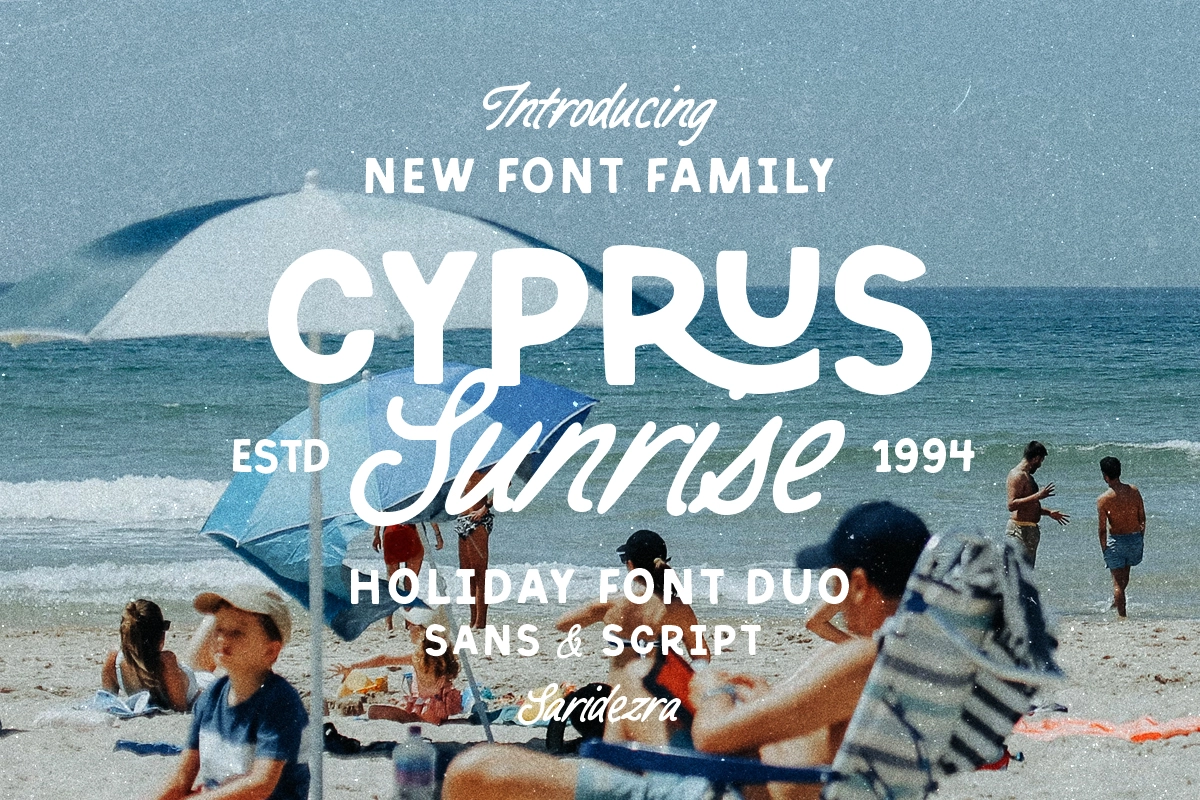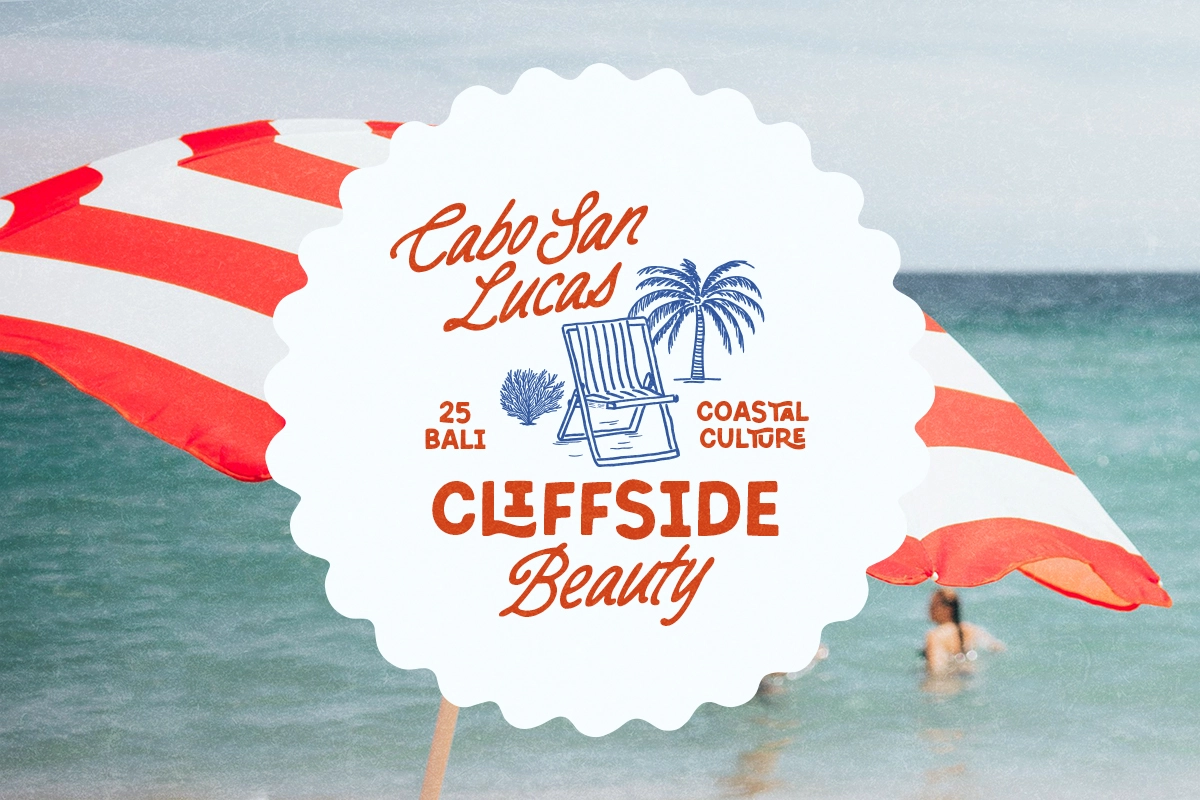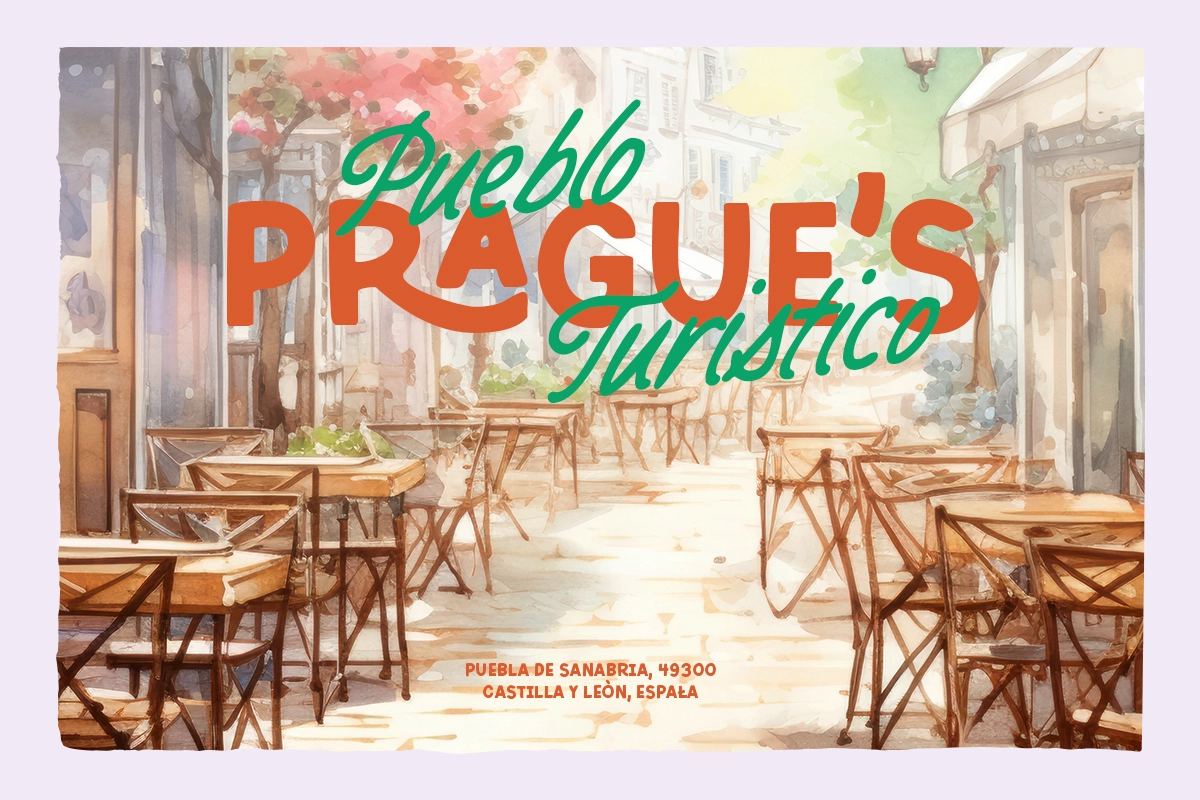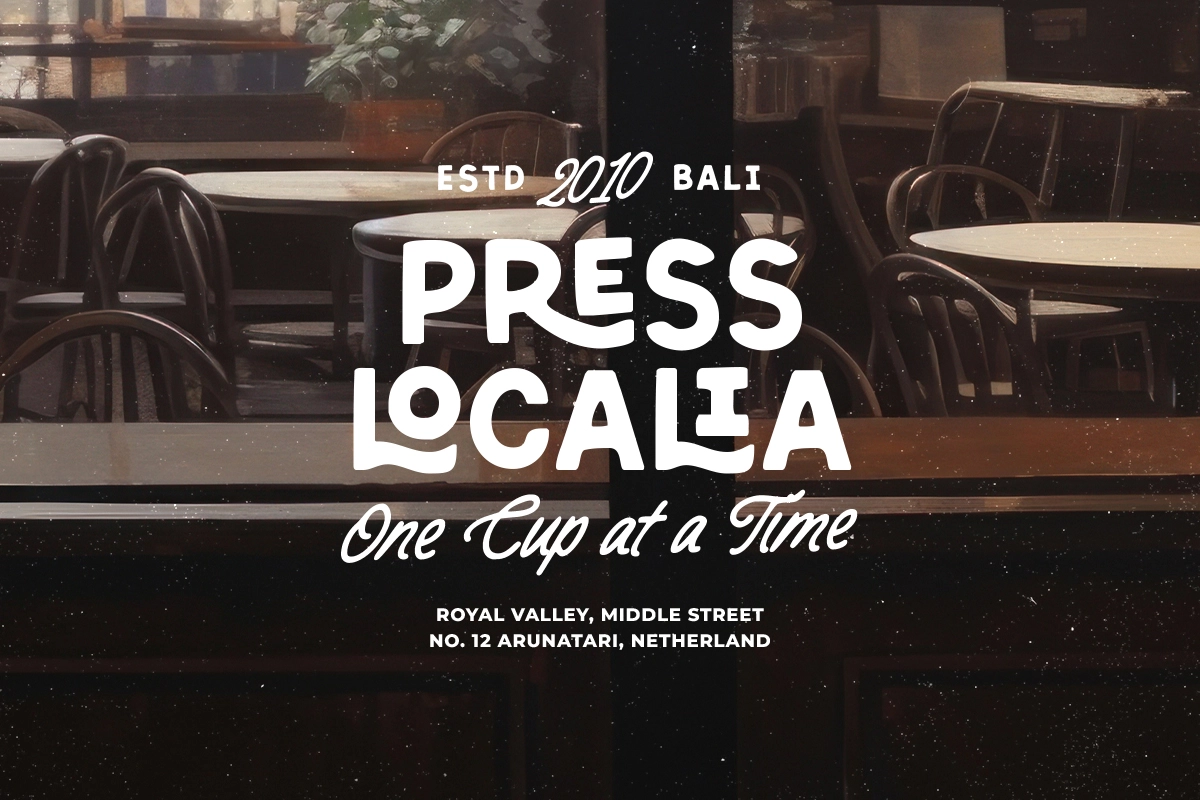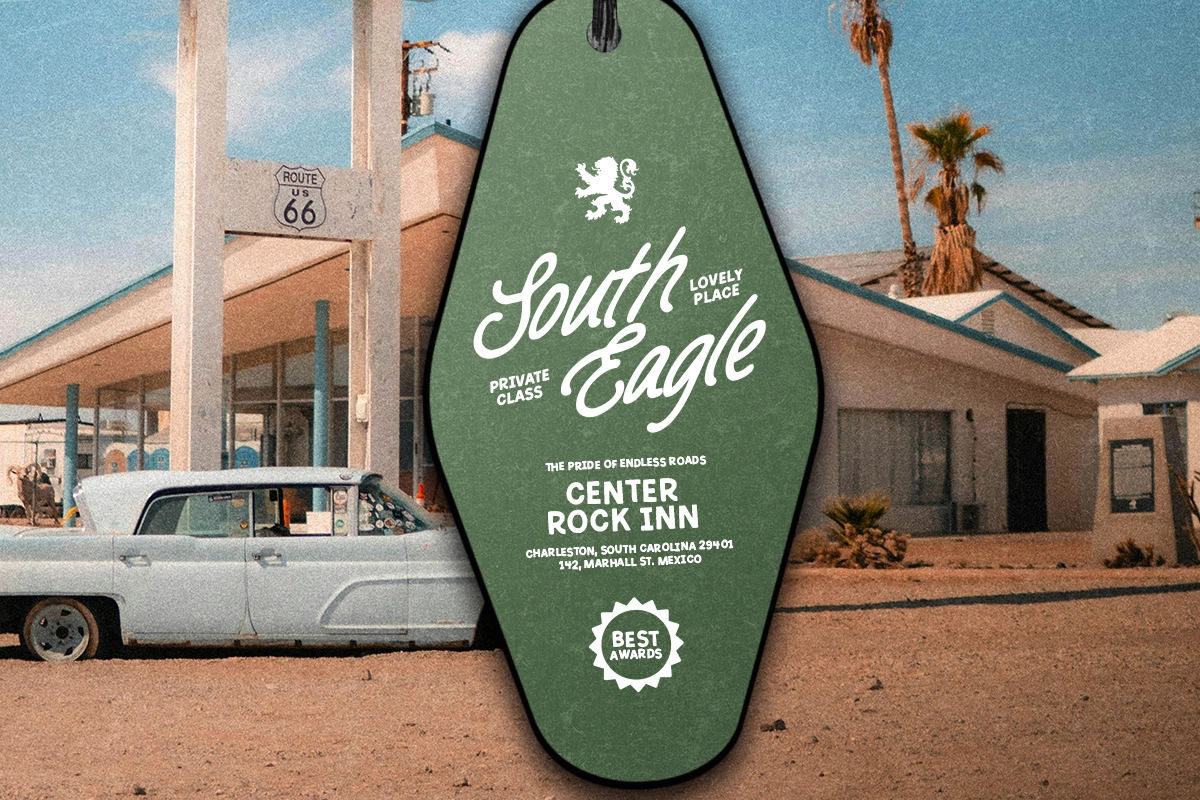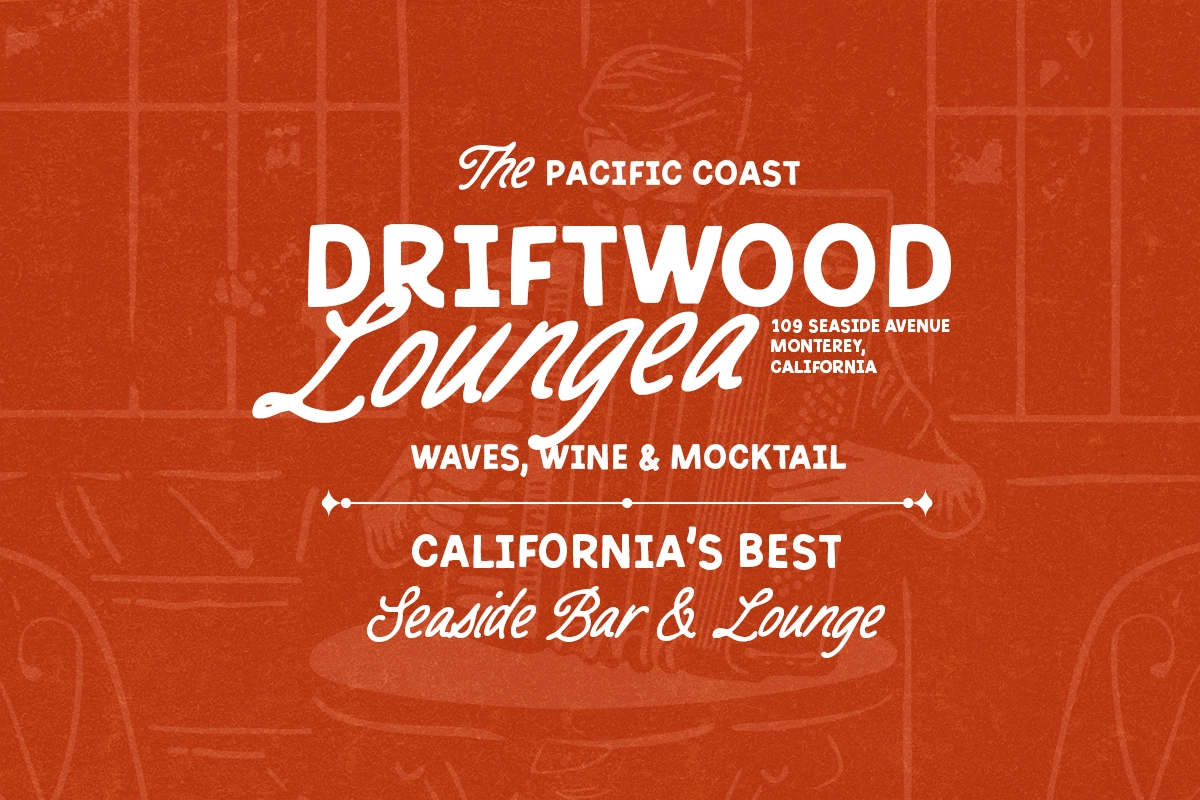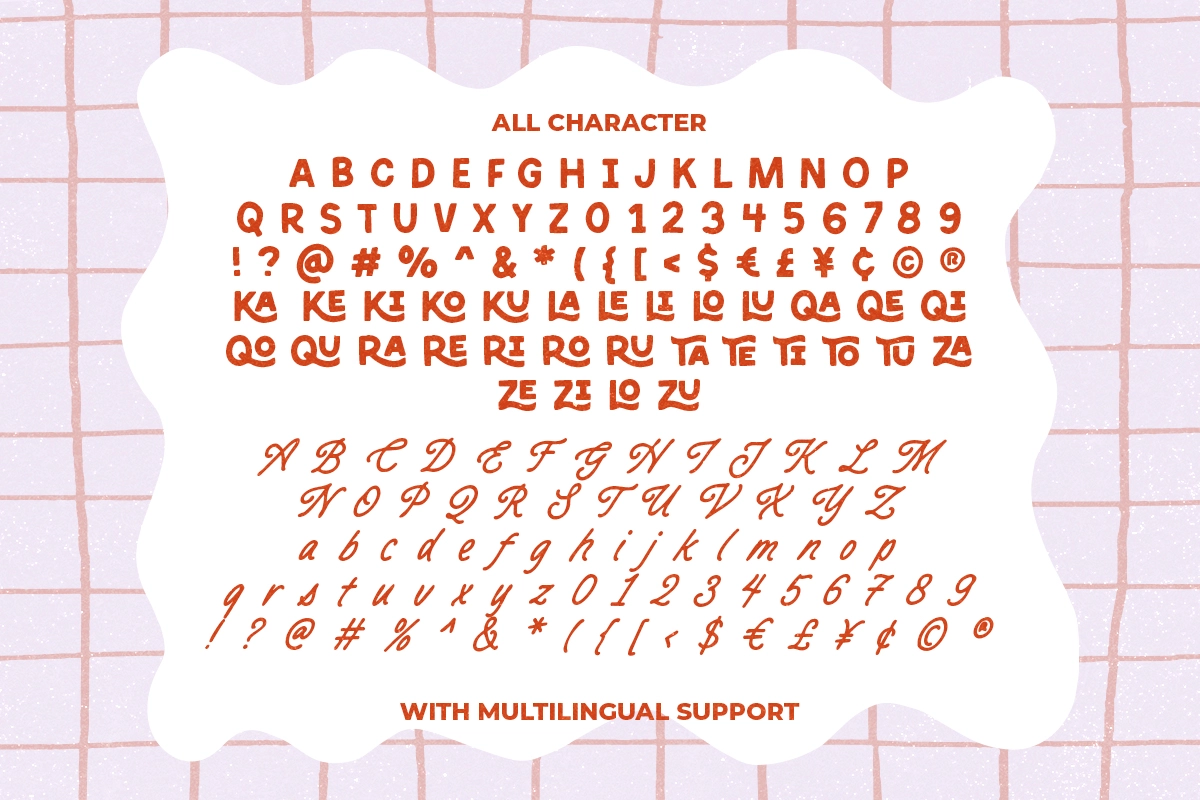
Cyprus Sunrise - Holiday Font Duo
Cyprus Sunrise is a hand-lettering font duo that have natural and handcrafted looks. Including bold sans serif with ligatures and monoline handwritten script that compliment each other. You can use this font for any purposes, such as logotype, branding, quotes, or even wedding invitations. It's perfect for your project that need rough and outdoor themes. Cyprus Sunrise also support multi language!